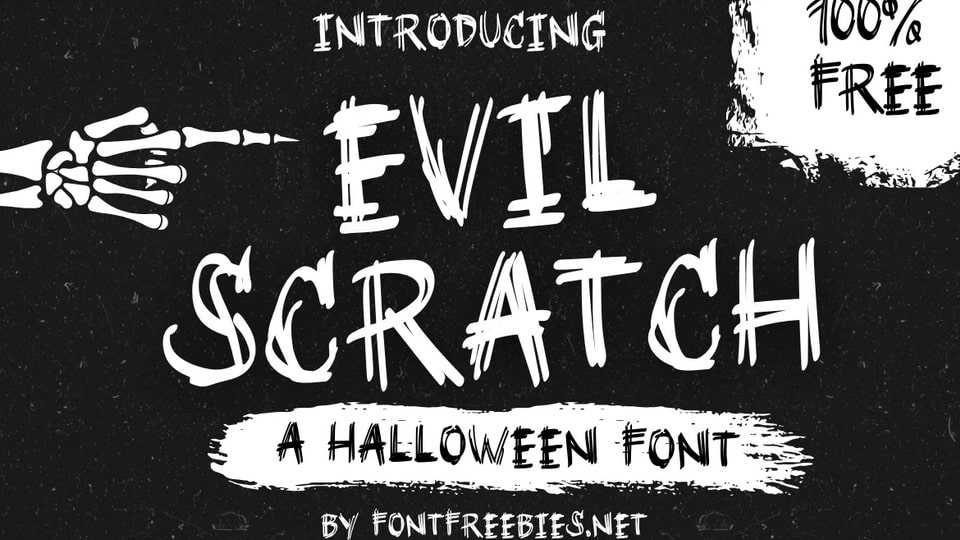
Download Evil Scratch font, a Halloween typeface with jagged, scratchy lettering that mimics the look of claws or nails scratching across the surface.
Designer: FontFreebies by IanMikraz